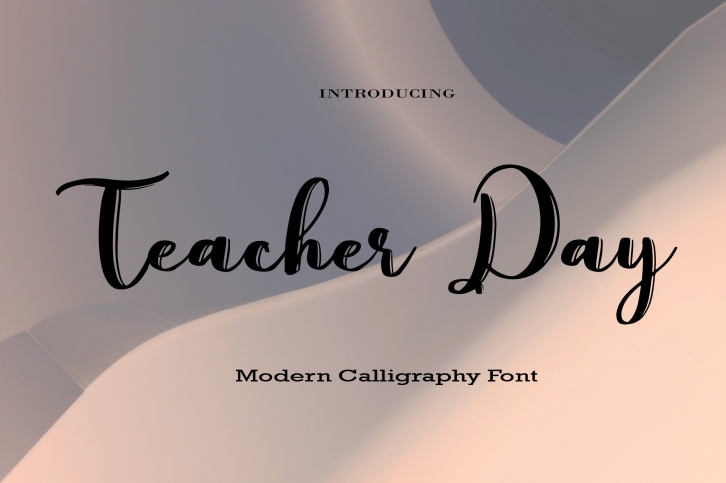
Teacher Day is a sweet and delicate handwritten font. Dainty and joyful, this font will be ideal for writing wedding invitations, cards or any other design that may need a romantic, personalized touch!